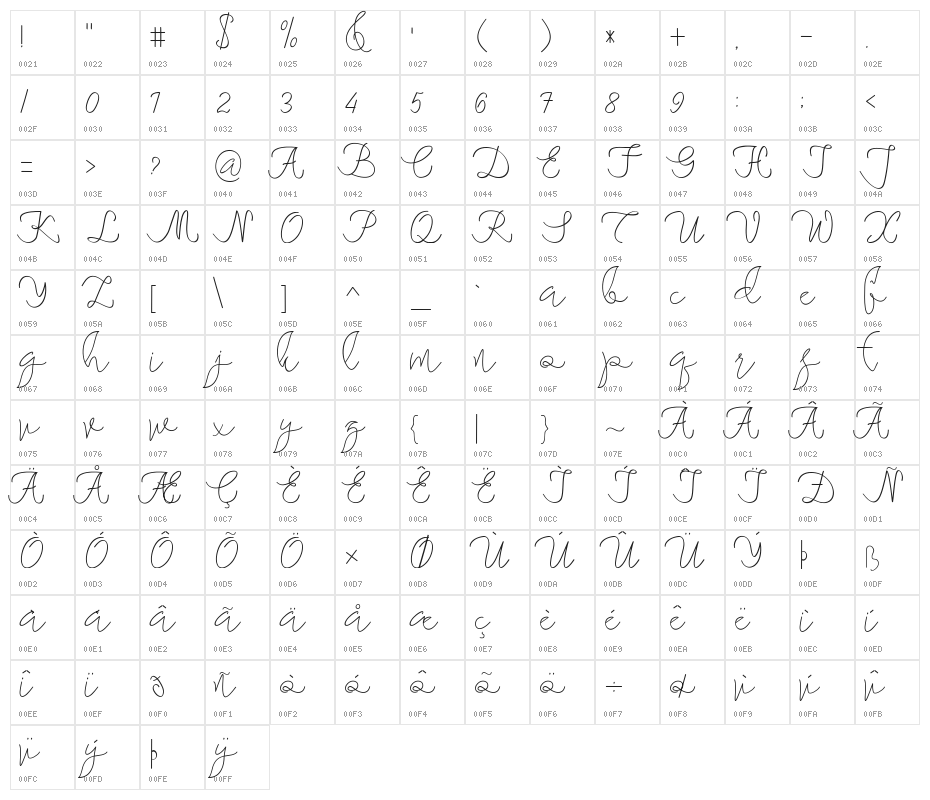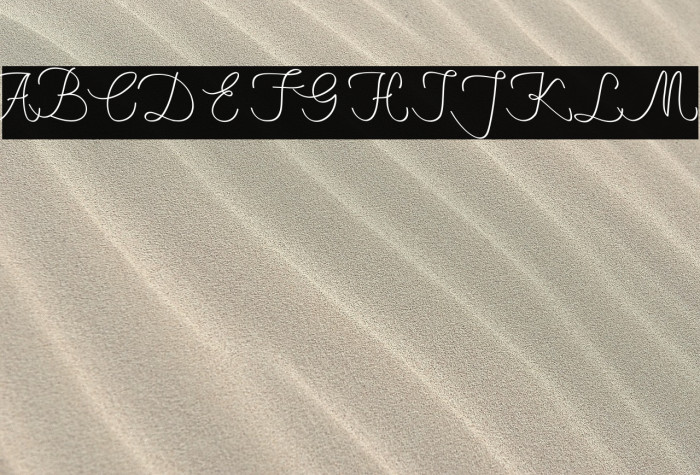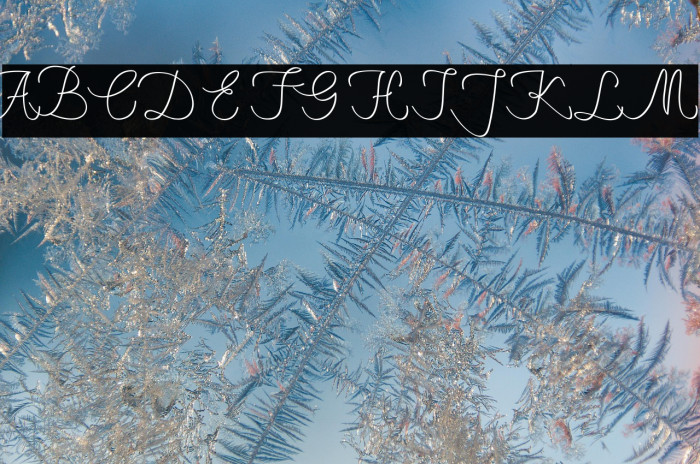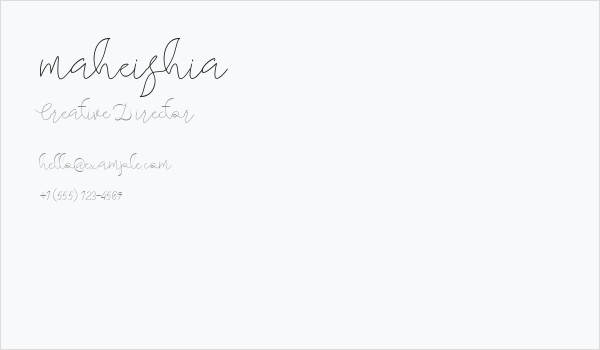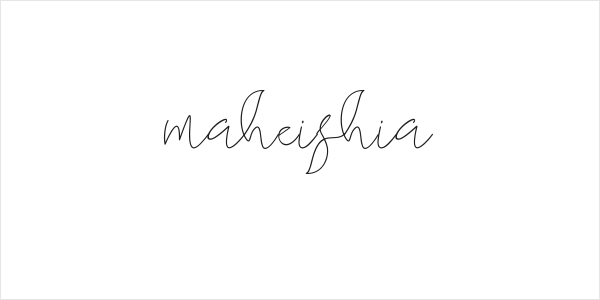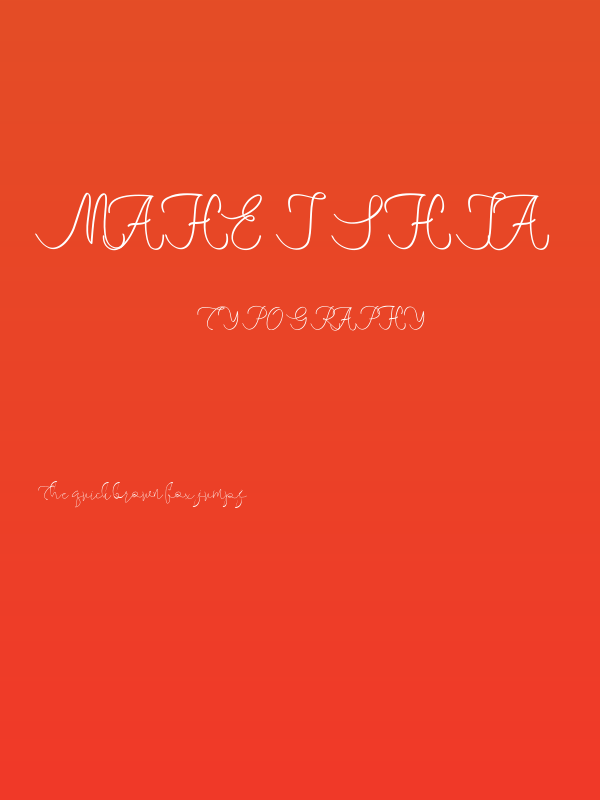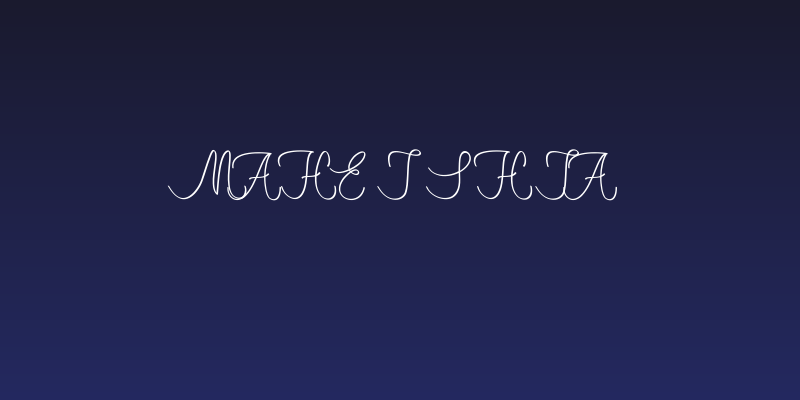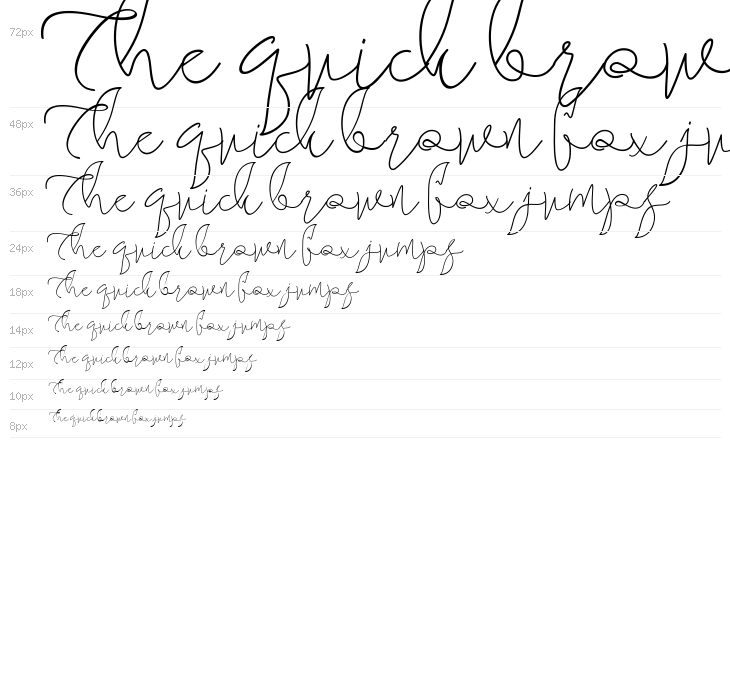
maheishia Font
maheishia Description
This font features an elegant, flowing script style that mimics natural handwriting. The characters are connected with smooth, fluid strokes, giving it a sophisticated and artistic appearance. The uppercase letters maintain a consistent height, while the lowercase letters vary slightly in size, adding to the organic feel. The numerals and special characters are designed to complement the letterforms, maintaining the same graceful curves and loops. This font is ideal for projects that require a personal touch, such as invitations, greeting cards, and branding materials.
| Overall Style | Elegant, Artistic |
| Use Case | Headlines, Invitations, Artistic projects |
| Proposed Projects | Ideal for wedding invitations, greeting cards, personal branding, and artistic projects. |